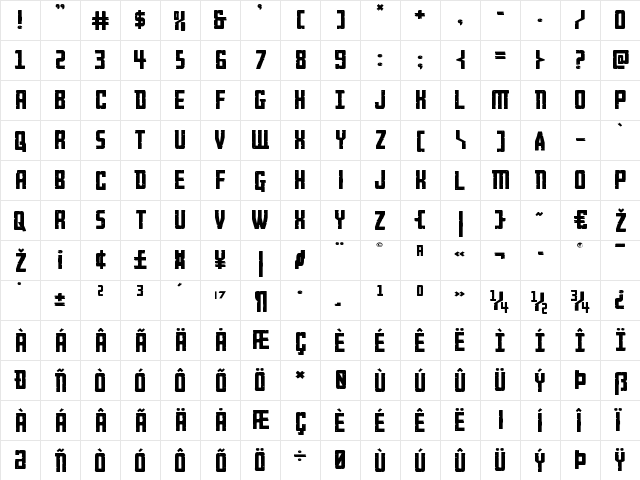
Rockledge Expanded Expanded
Design Context for Rockledge Expanded Typeface
Rockledge Expanded is a composed and adaptable typeface that performs quietly and consistently across a wide range of design contexts.